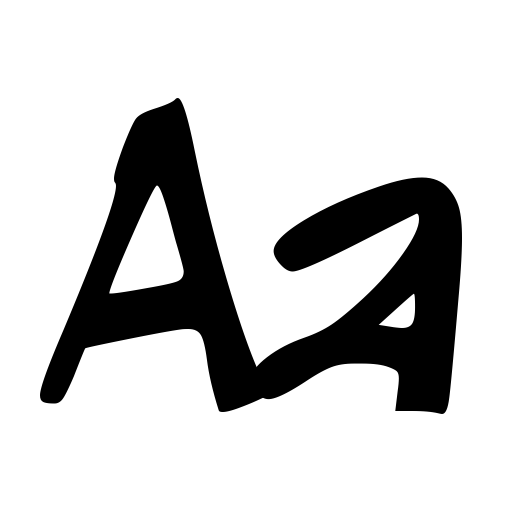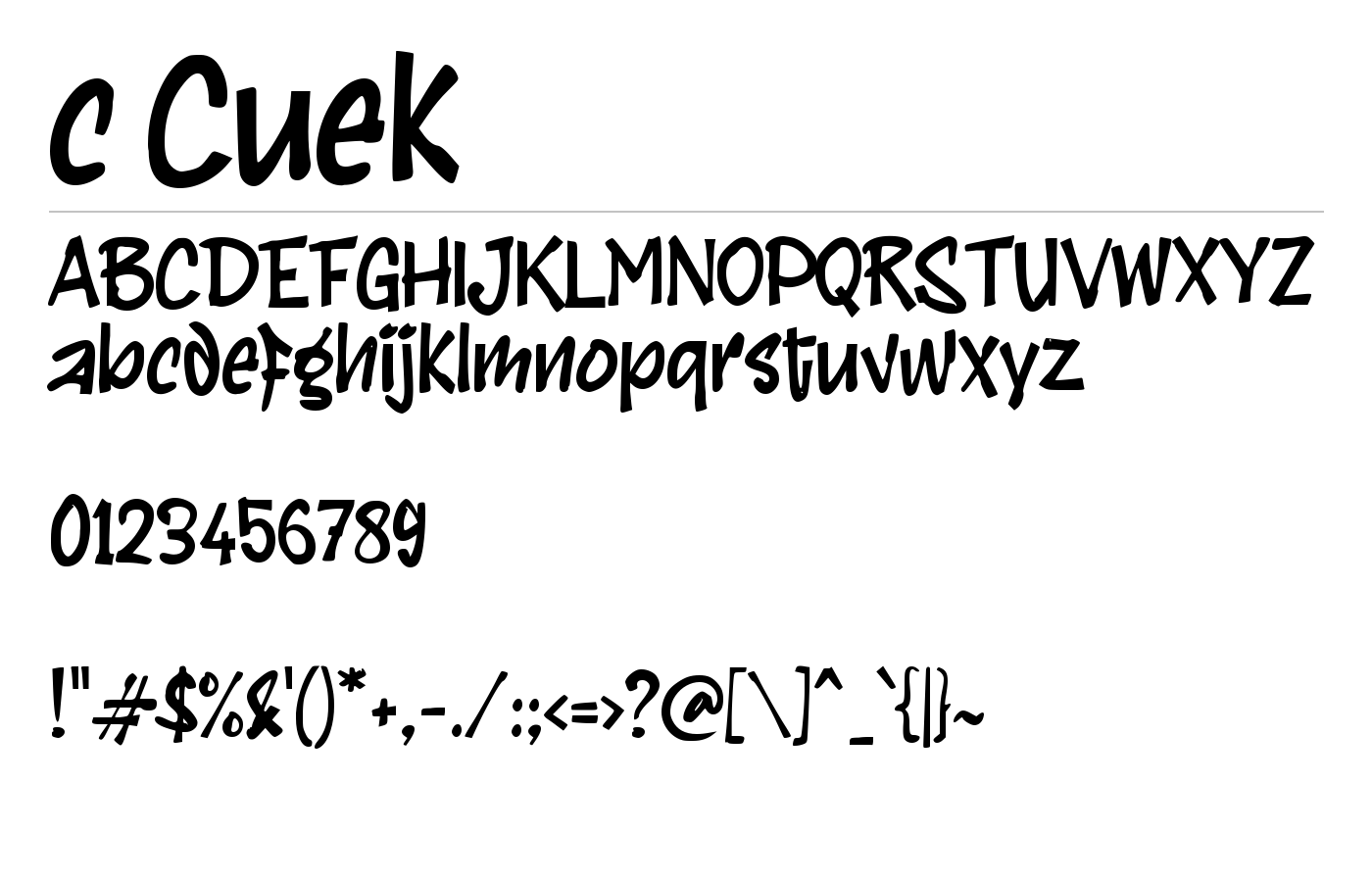
C Cuek is a lively and informal sans serif font with a playful, hand-drawn feel. Its irregular, slightly condensed letterforms and noticeable stroke variation give it personality and charm, making it perfect for casual branding, creative projects, and friendly headlines. This font works well where a warm, approachable tone is desired, adding a unique touch to posters, invitations, and fun editorial designs.
c Cuek Font